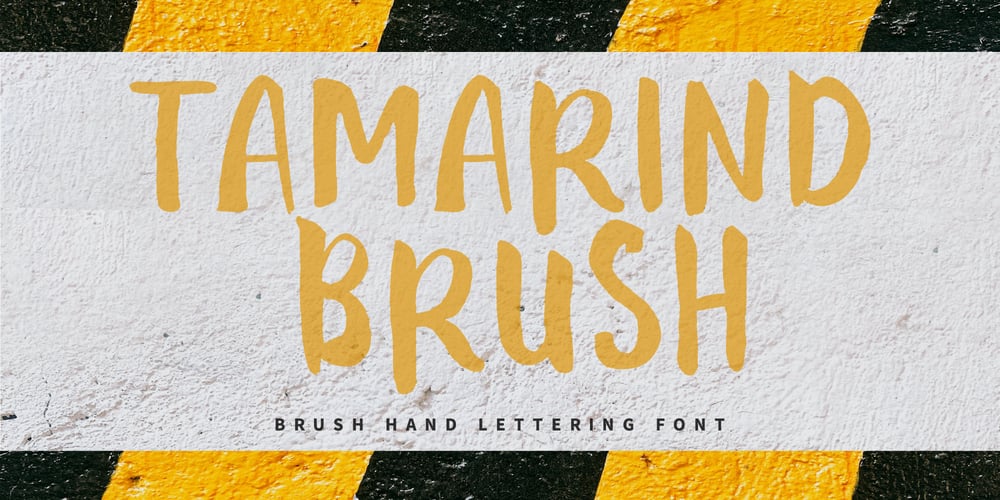
Tamarind Brush Font Family was designed by Oki Candra Setiawan and published by OCSstudio. Tamarind Brush contains 1 styles and family package options. Introducing the new Tamarind Brush Font! A casual font, with brush letters. Perfect for: using bold, brushed handwritten based designs 🙂 Use it for Branding, Logos, Greeting Cards, Stationery Designs, Invitations, T-shirts, Clothing, Packaging Designs, Posters, Typography Designs and much more!